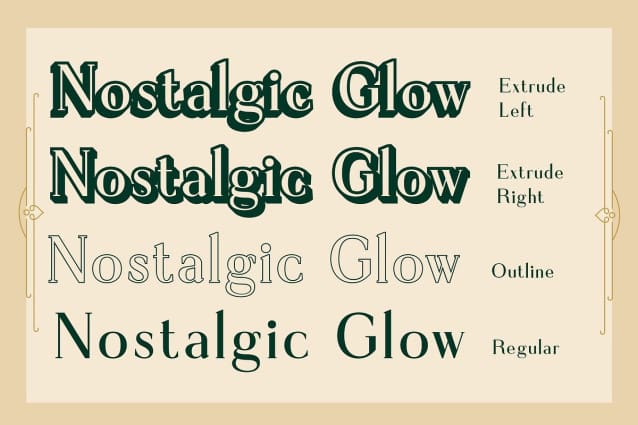
Demila 3D Font
Demila 3D Font is a modern serif font that combines sleek, clean lines with refined letterforms to exude sophistication and timeless elegance. Its slim structure enhances the font’s modern appeal, making it a perfect choice for high-end branding, luxury design projects, and upscale editorial work. The simple yet graceful serifs provide a polished and professional aesthetic, ideal for designs that require a refined, dignified look.
3D Effect for Depth and Dimension When paired with a striking 3D effect, Demila 3D elevates its elegance to new heights. The added depth and dimension give the font a visually captivating presence, creating a dynamic contrast that draws the viewer’s eye. This combination of sleek lines and dimensional depth transforms the font into a versatile design tool for projects aiming to capture both sophistication and visual intrigue.
Timeless Luxury for Upscale Projects Perfect for high-end branding, Demila 3D maintains a perfect balance of traditional elegance and modern sophistication. Its 3D form enhances the font’s versatility, making it ideal for luxury packaging, editorial headlines, corporate branding, or promotional materials. Whether used for upscale fashion brands, premium products, or high-profile events, Demila 3D stands as a symbol of class and refinement.